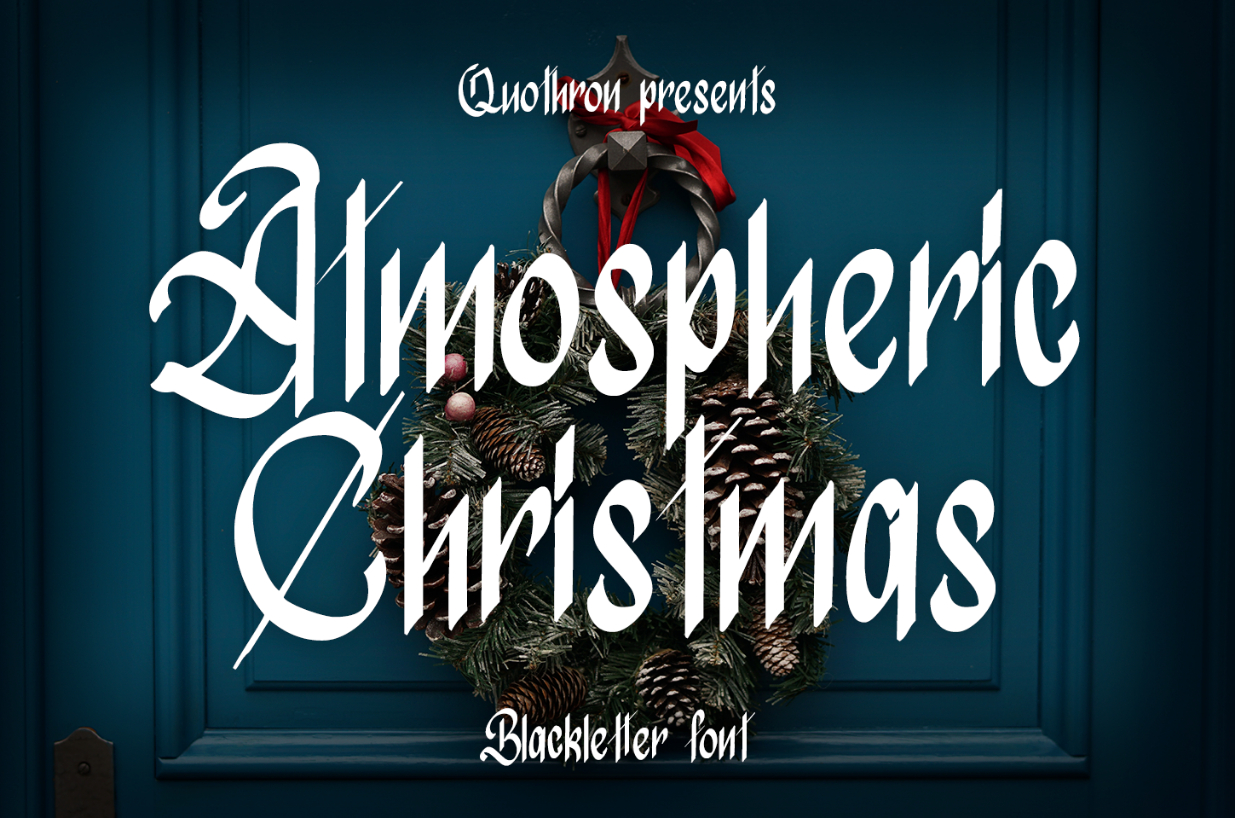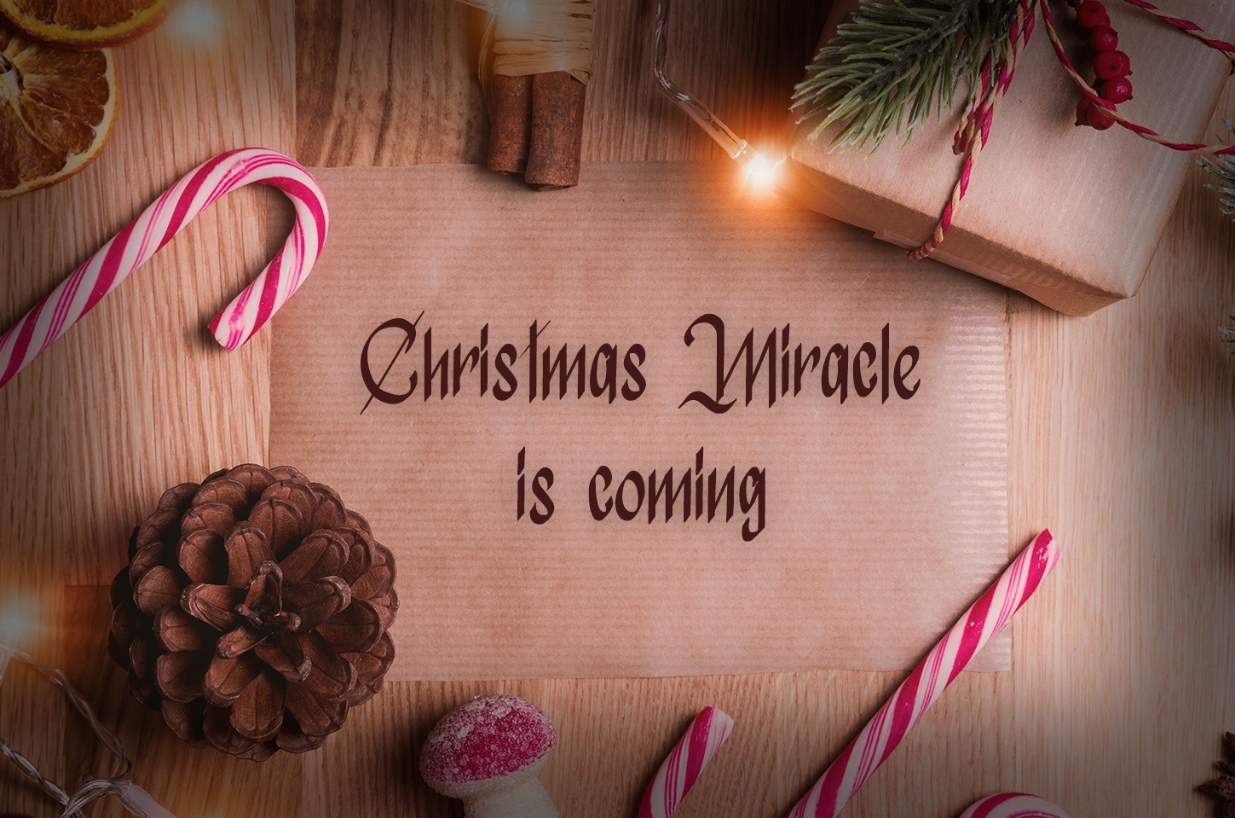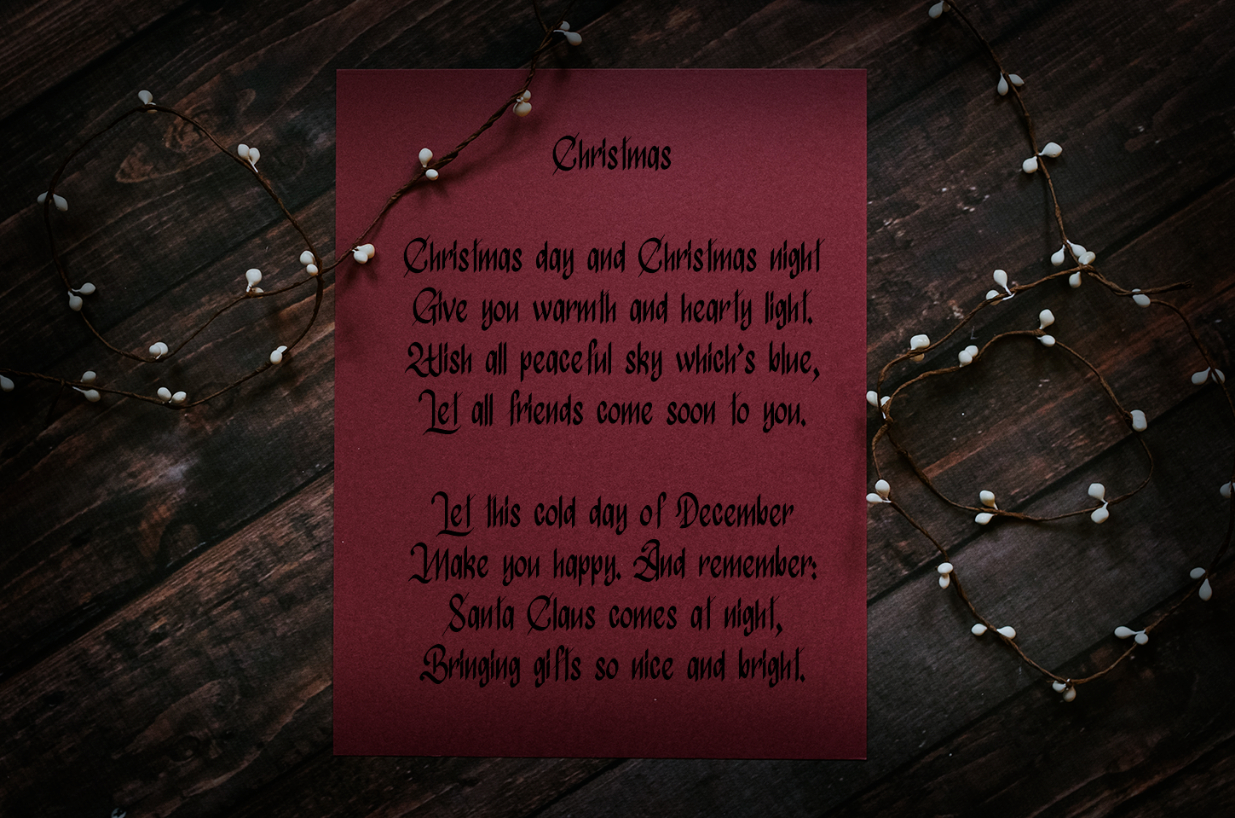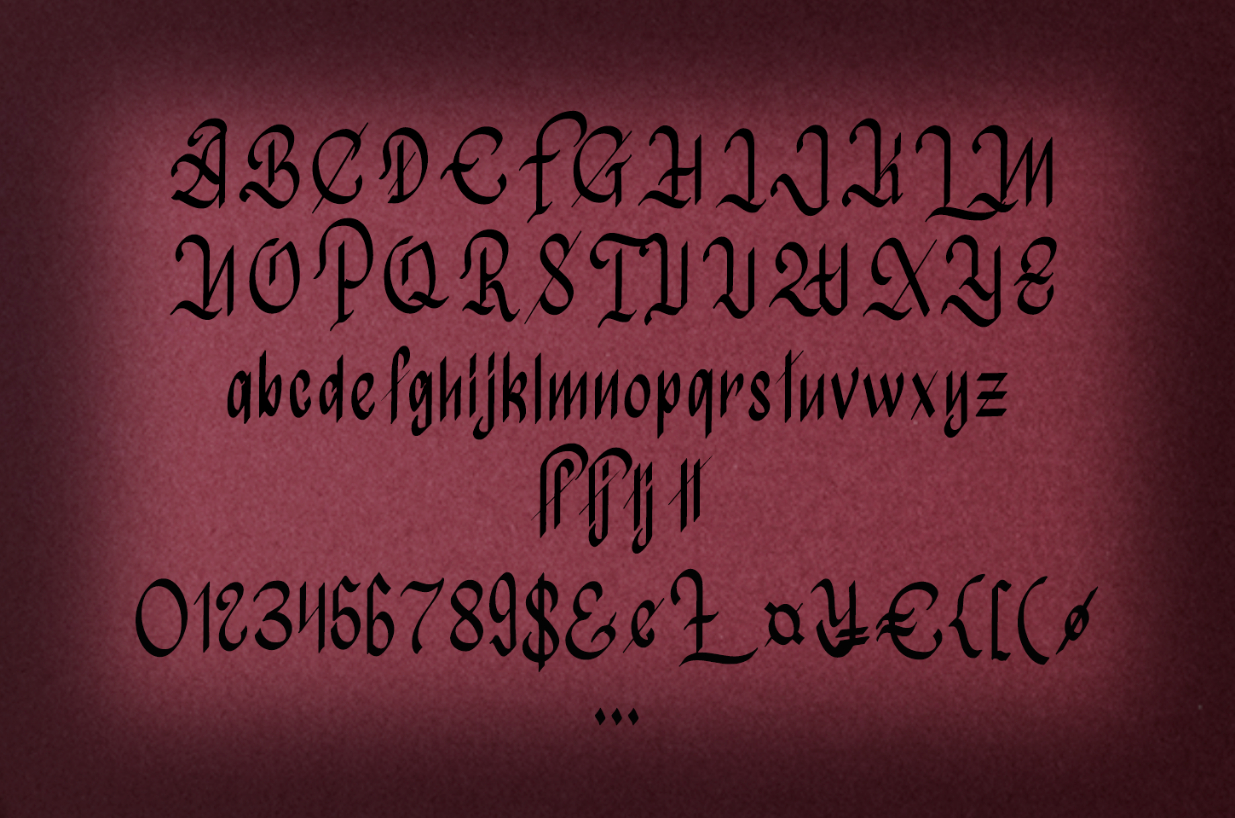
Atmospheric Christmas Font
About Atmospheric Christmas Font
Atmospheric Christmas is a vintage blackletter font that celebrates the spirit of Christmas. Use it to add a nostalgic feel to any design idea!